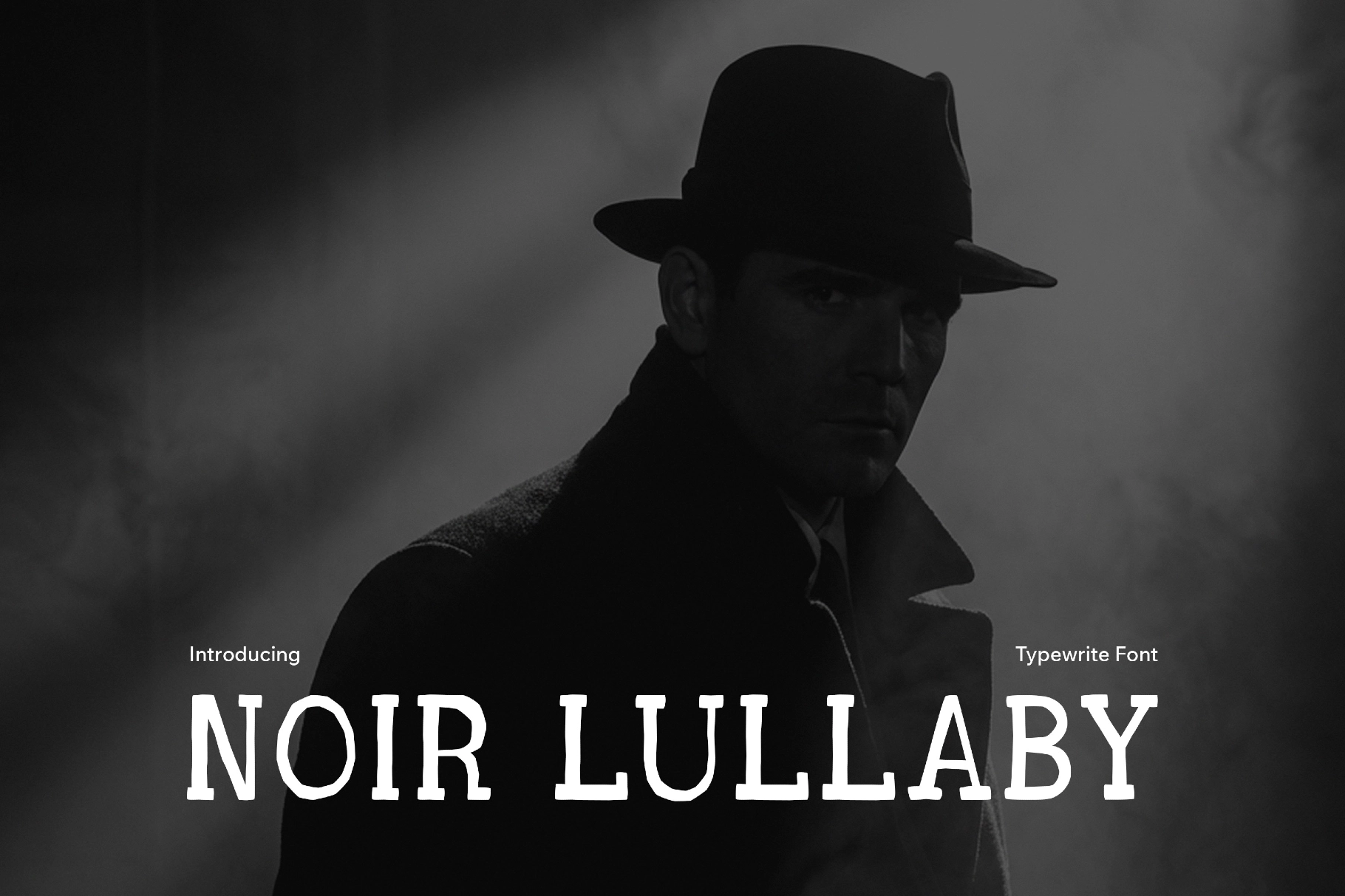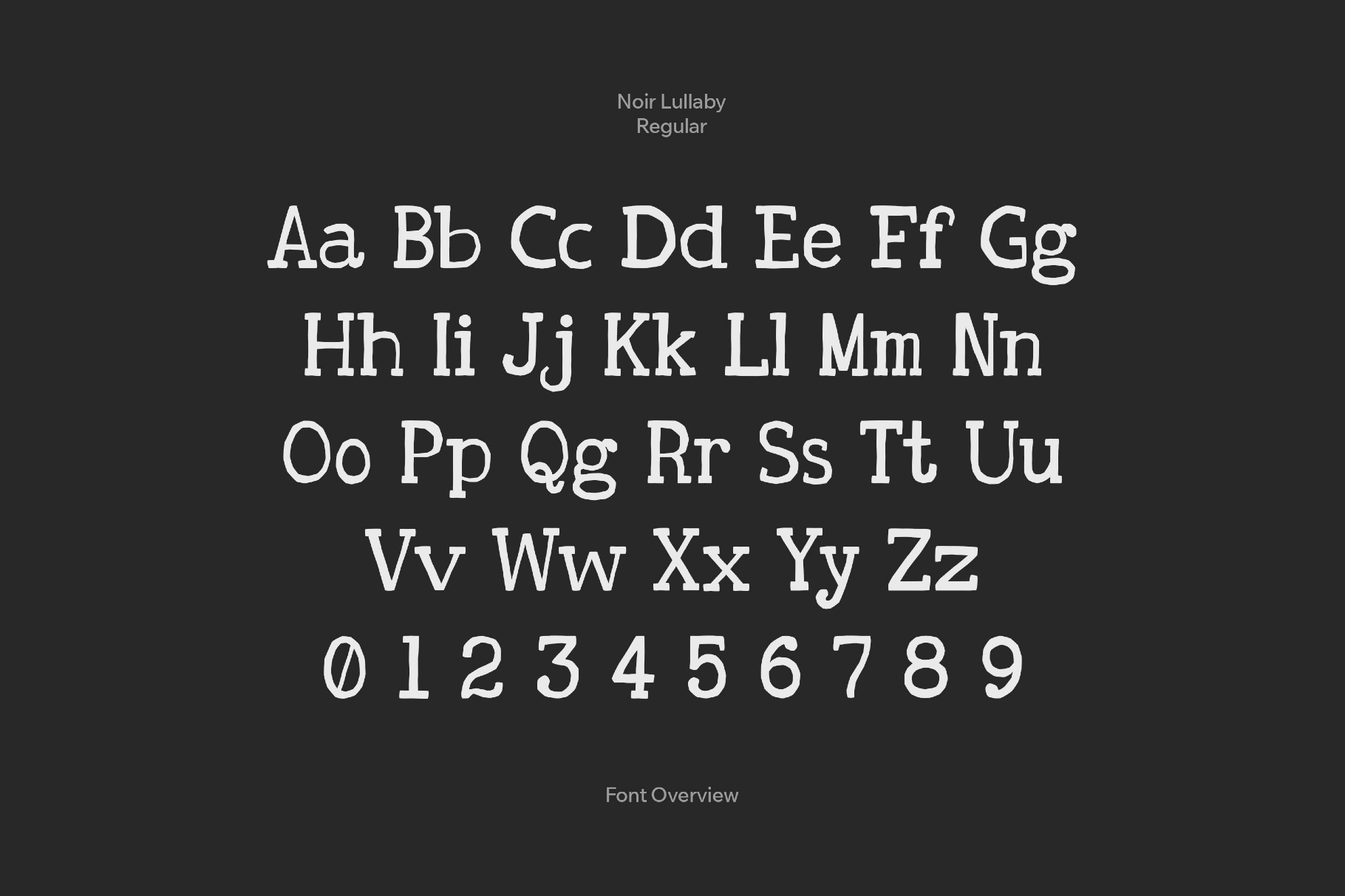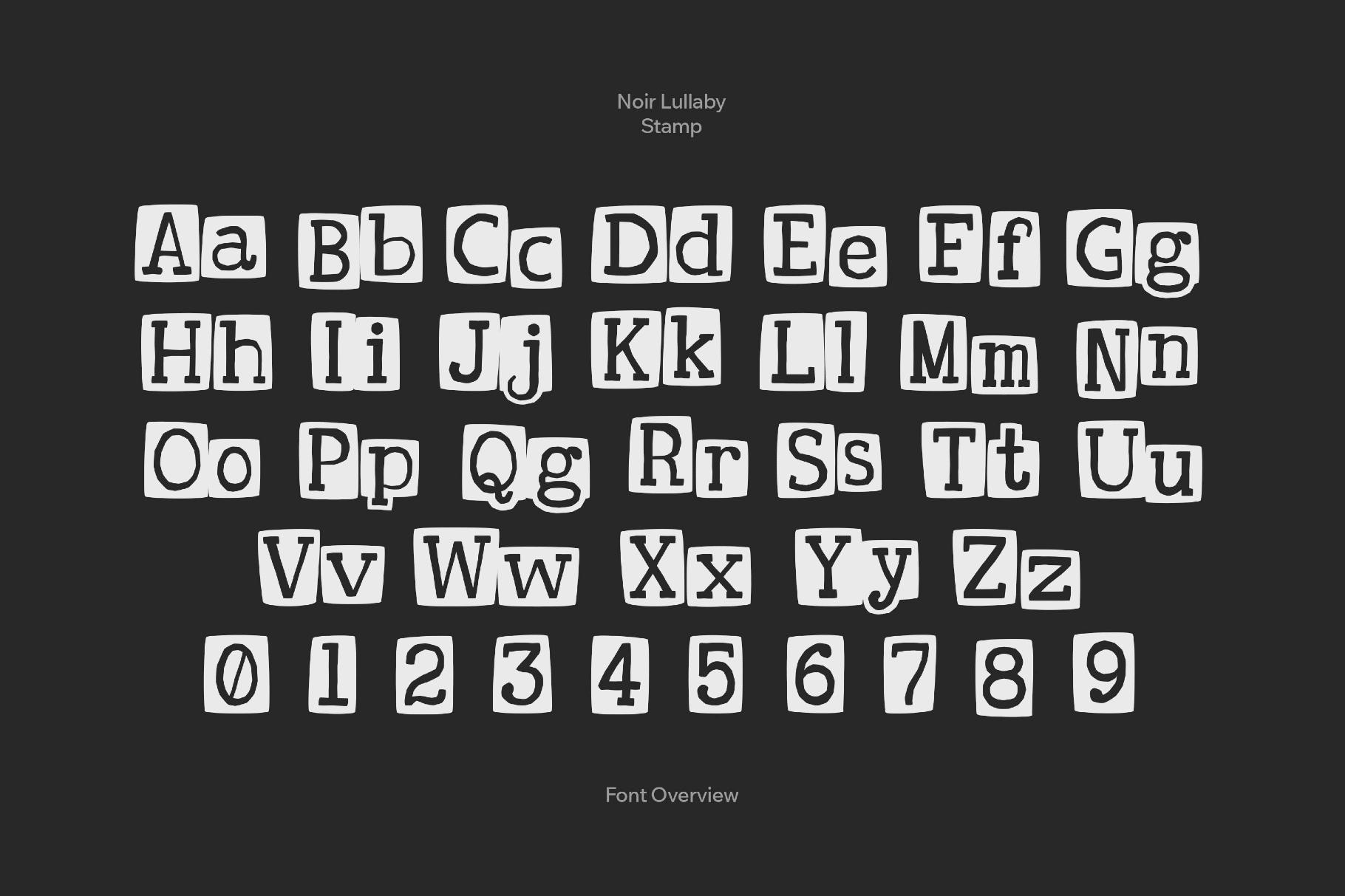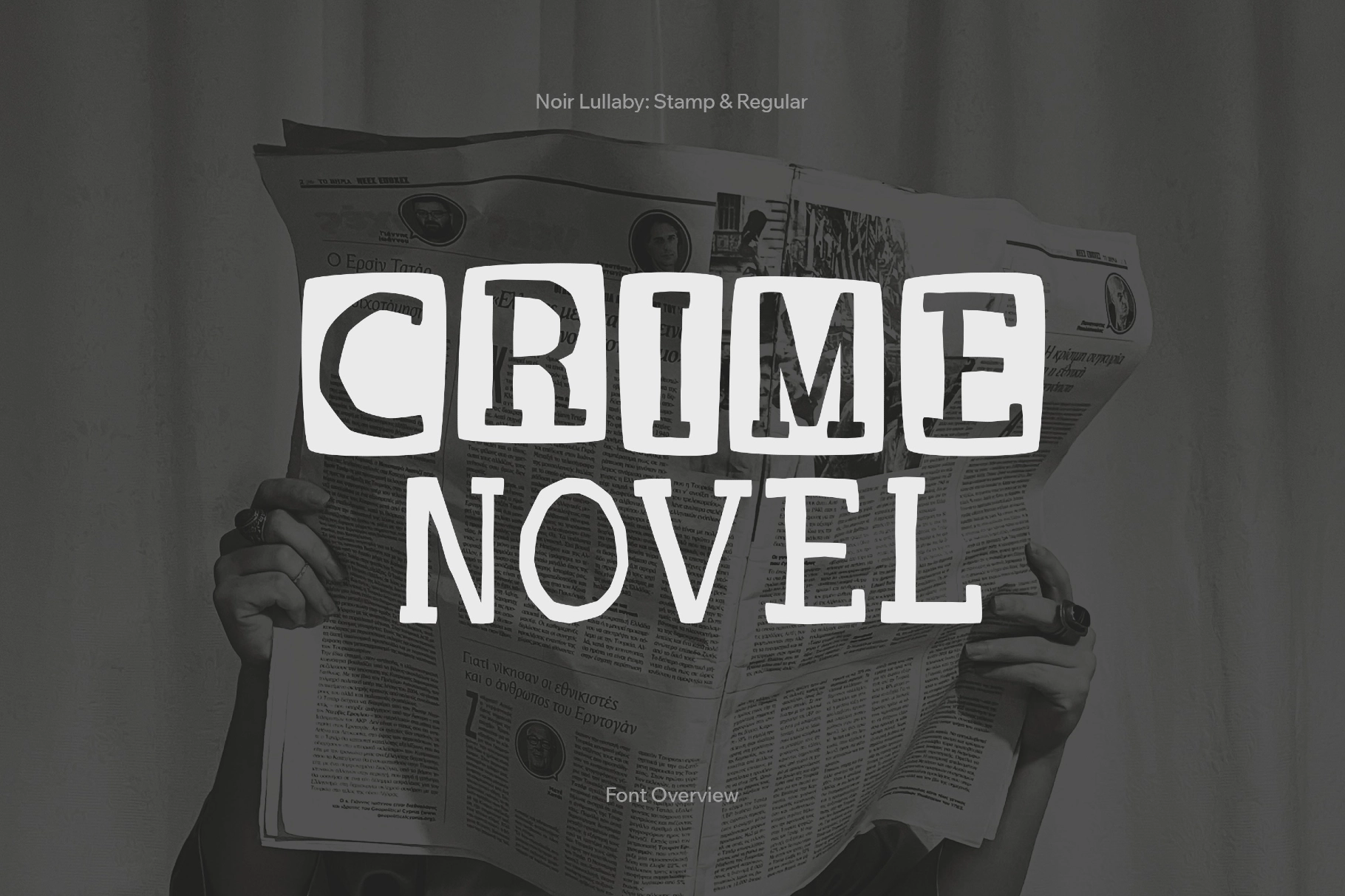
Noir Lullaby | Typewriter Font
Noir Lullaby feels caught between bedtime softness and noir-film tension. It comes with uneven contours, crisp terminals, rounded slab touches, and slightly shaky strokes. Two cuts — regular and stamped — let you toggle between neat reportage and ink-splotched grit.
You can use it for crime novel jackets, dossier posters, storybook titles, retro game menus, podcast artwork, prop labels for film, café boards with pricing, archival exhibits, and brand marks. The font also fits character-driven design work — from album art and poetry prints to cozy product labels and gentle editorial spreads.